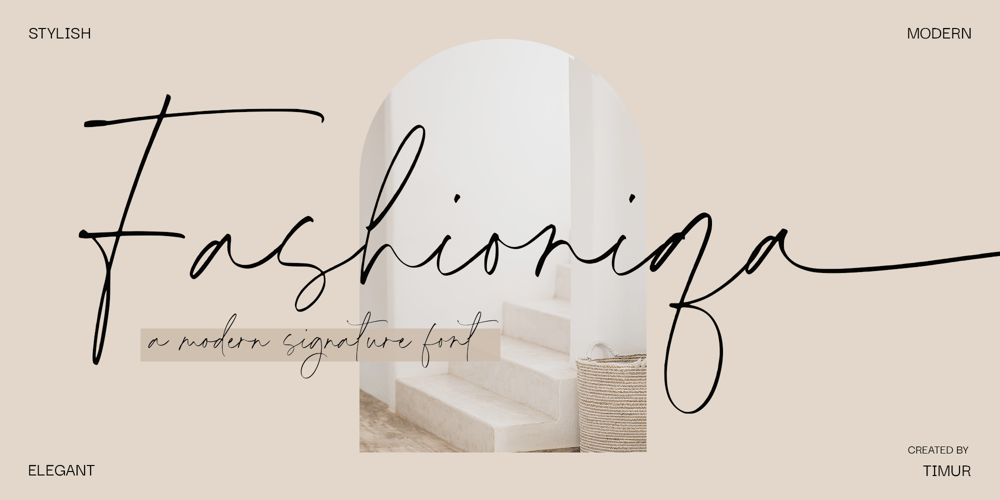
Fashioniqa Font Family was designed by Wara Sigit Tri Pamungkas and published by Timurtype. Fashioniqa contains 1 styles and family package options. Introducing by Timur typeProudly Present, Fashioniqa A Handwritten FontFashioniqa is perfect for product packaging, branding project, megazine, social media, wedding, or just used to express words above the background.Fashioniqa also multilingual support.Enjoy the font.Thank you!